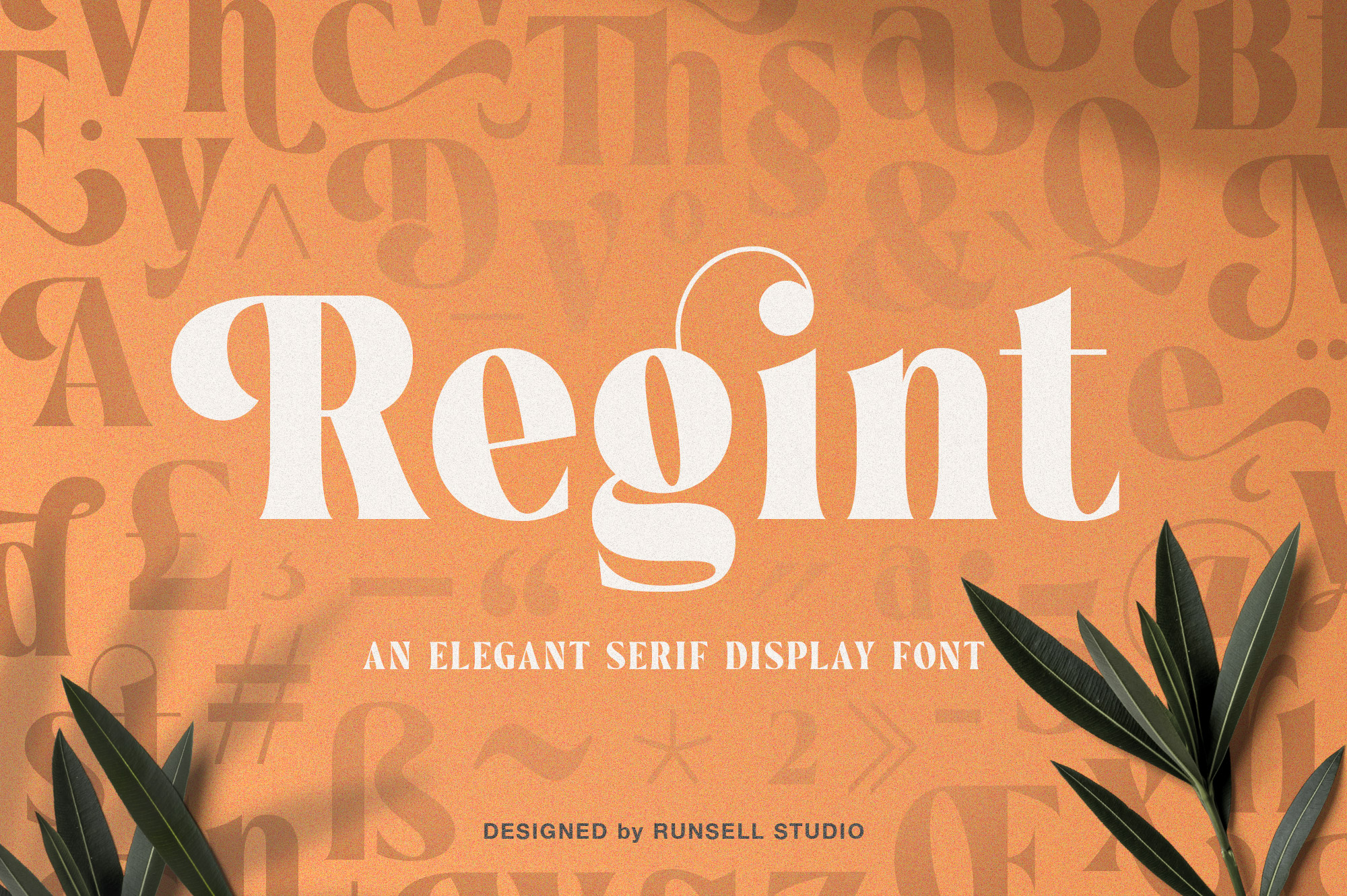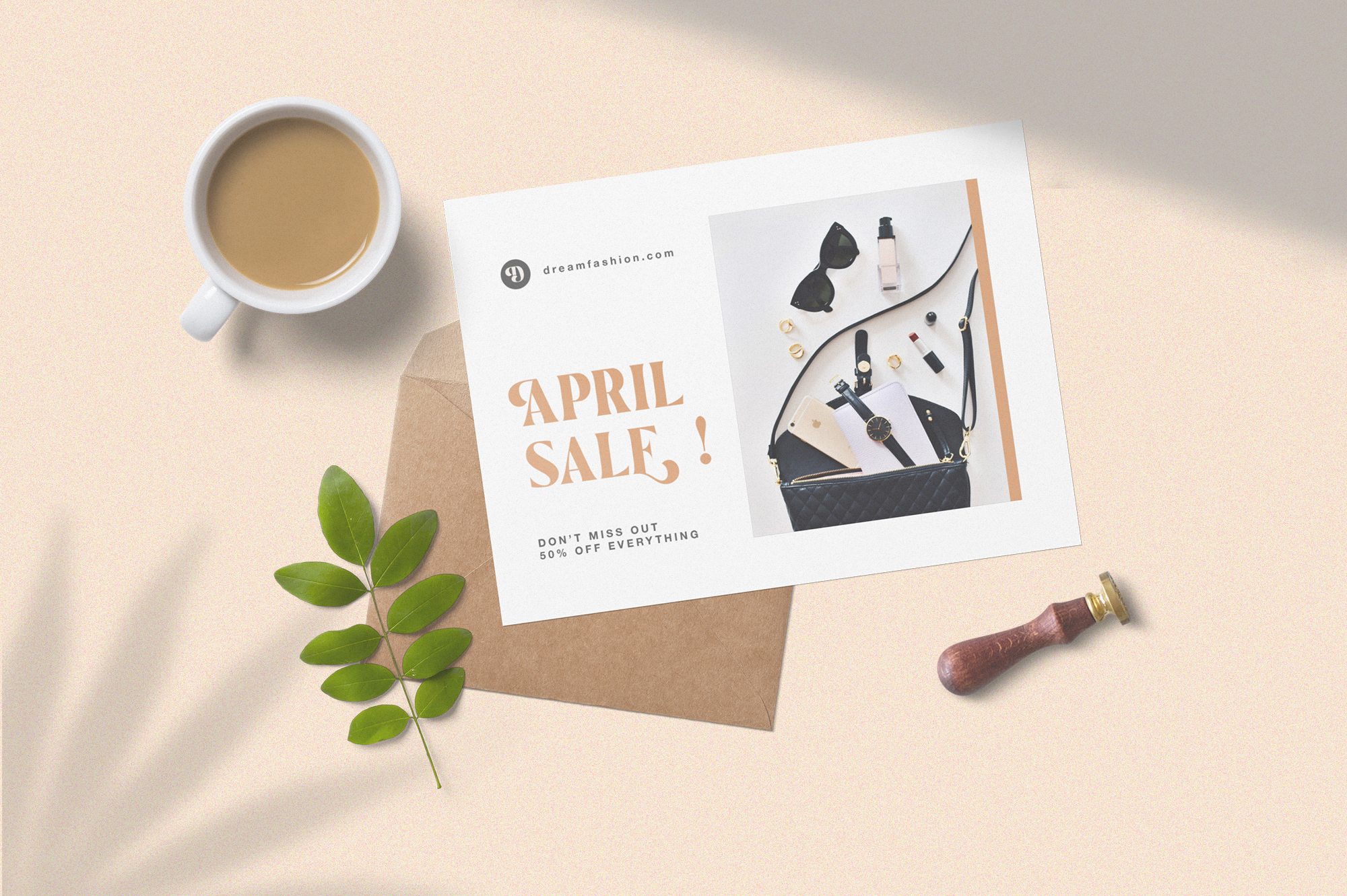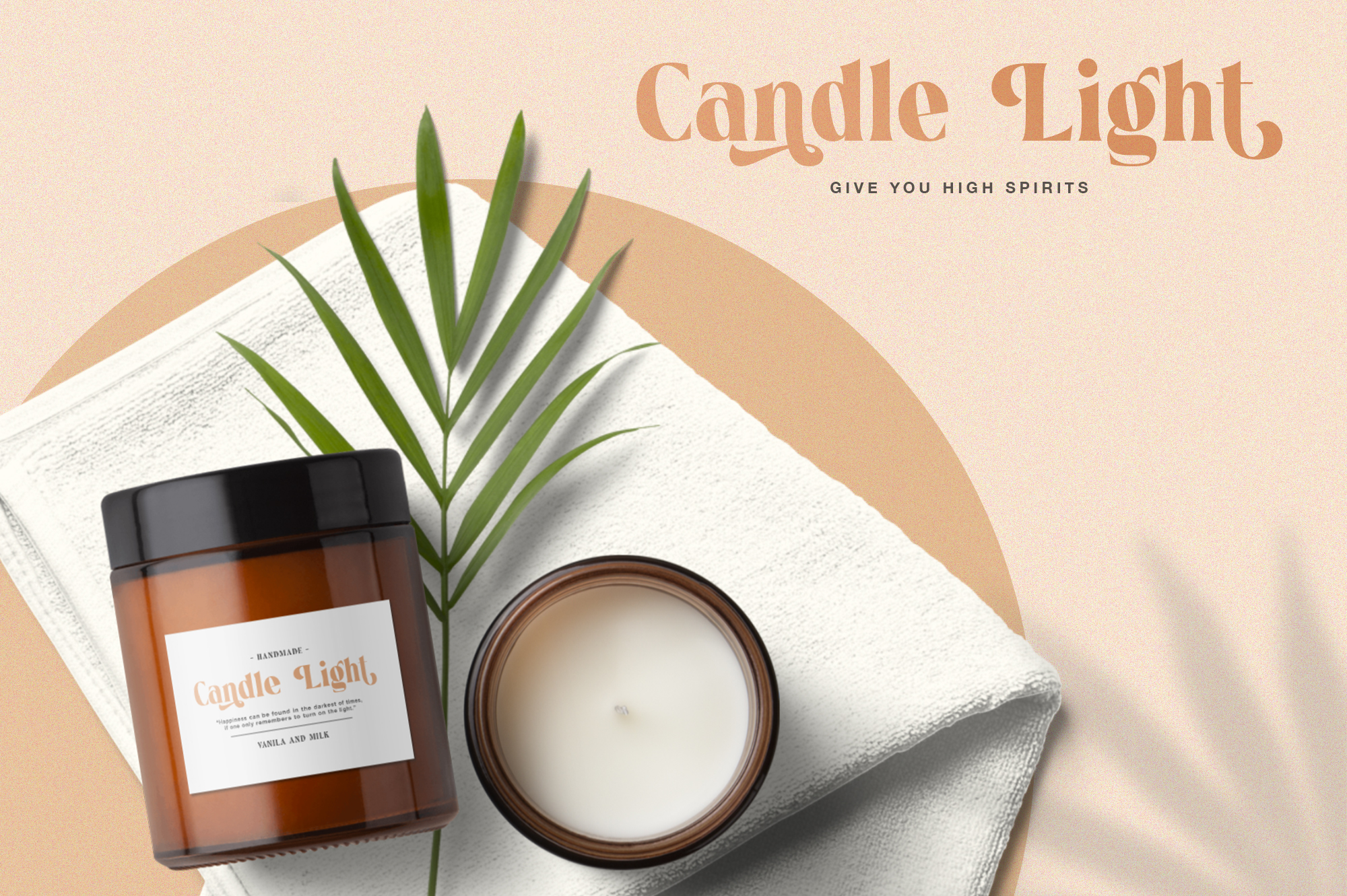
Regint
Regint is an elegant serif display font that blends sophistication with flair. Its refined curves, sharp serifs, and high-contrast strokes offer a timeless charm, while the stylish swashes and ligature details bring a sense of modern luxury. Perfectly suited for branding, editorial layouts, wedding invitations, and packaging, Regint adds a graceful touch to every visual.
Designed for creatives who seek both character and beauty, Regint delivers a harmonious balance between classic elegance and expressive personality. Whether you’re designing a boutique label, an upscale magazine, or a stylish logo, this font elevates your message with a polished and artistic presence.